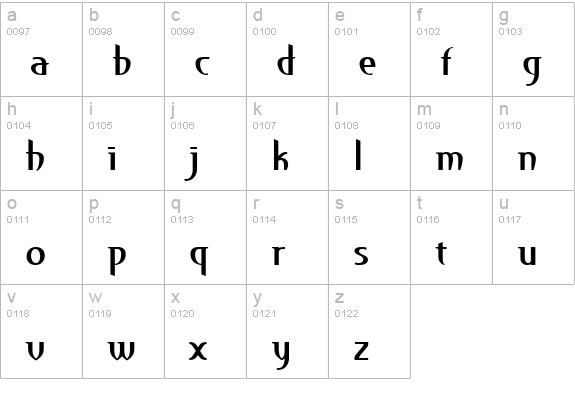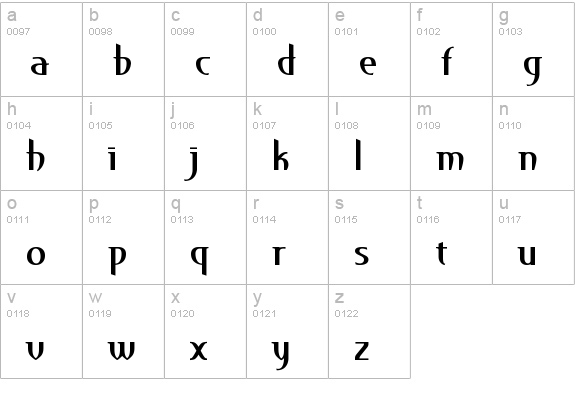
PFRoyale Bold Font Details
PFRoyale Bold is a strong, high-contrast variant in the PFRoyale typeface family \xE2\x80\x94 well suited to headlines, attention-grabbing titles, and strong calls-to-action.
PFRoyale Bold font is a striking and powerful typeface that exudes confidence and sophistication. Its bold and impactful design makes it perfect for headlines, titles, and other prominent text in various design projects. The strong and modern letterforms of PFRoyale Bold demand attention and leave a lasting impression on the viewer. What sets PFRoyale Bold font apart is not only its bold aesthetic but also the fact that it is available for free. Yes, you read that right - this stunning font is freely available to download at FontsMarket.com. Whether you're a designer looking to elevate your projects or simply someone who appreciates quality typography, PFRoyale Bold font is a must-have addition to your font collection. Download it today and unleash the boldness in your designs!